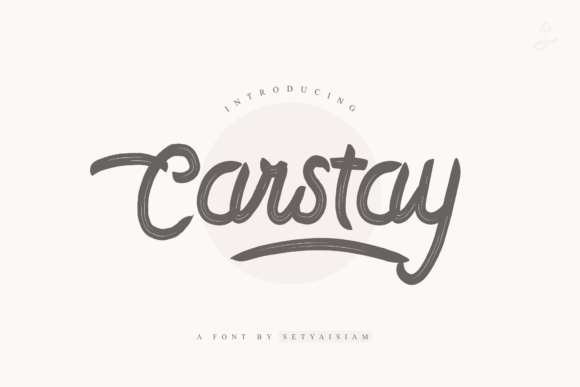
The Carstay Font: A Delicate Touch for Your Creative Projects
I’ll never forget the design struggle I faced while working on a branding project for a boutique coffee shop. My client wanted a font that was elegant, yet approachable; something that would make their customers feel like they’re sipping a latte in a cozy café. After hours of scrolling through font libraries, I stumbled upon Carstay – a brushed script font that stole my heart. In this article, I’ll share my experience with Carstay, its features, and how to make the most of it in your creative projects.
An Honest Review of Carstay
What I Love About Carstay ✨
- 💫 Delicate touch: Carstay’s brushed script style adds a touch of sophistication to any design.
- ✅ Versatile: Perfect for campaign needs, branding, logos, Instagram stories, reels, or memes.
- 🎨 Highly customizable: With OpenType features and glyphs, you can experiment with different styles and variations.
- 📸 Instagram-worthy: Carstay’s elegant curves and lines make it perfect for social media graphics.
While Carstay is an amazing font, there are a few things to keep in mind:
- 🤔 Limited use in body text: Due to its script nature, Carstay might not be the best choice for long paragraphs of text.
- ⚠️ May not work well in small sizes: Carstay’s delicate features might get lost when scaled down.
The Story Behind Carstay
Carstay was designed with the intention of capturing the elegance of handwritten scripts. The designer aimed to create a font that would evoke a sense of sophistication and whimsy, perfect for creative projects and branding. Inspired by the fluid strokes of a brush, Carstay brings a delicate touch to any design.
Q: What type of projects is Carstay best suited for?
A: Carstay is perfect for campaign needs, branding, logos, Instagram stories, reels, or memes. Its elegant curves and lines make it ideal for designs that require a touch of sophistication.
Q: Can I use Carstay for body text?
A: While Carstay is a beautiful font, it’s not recommended for long paragraphs of body text. Its script nature can make it difficult to read in large quantities.
Q: Does Carstay support OpenType features?
A: Yes, Carstay supports OpenType features, including glyphs and stylistic alternates. This allows you to experiment with different styles and variations.